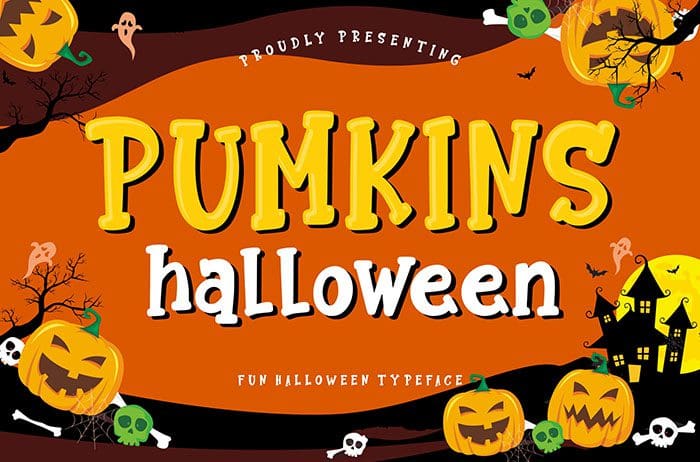
Pumkins Halloween Display Font
Pumkins Halloween is a fun and joy Display Font which suitable to use for Halloween related occasion. Perfect for branding projects, product packaging, and more. Thanks to Creatype Studio for sharing this font! Take a look at this portfolio for more of his stunning fonts.